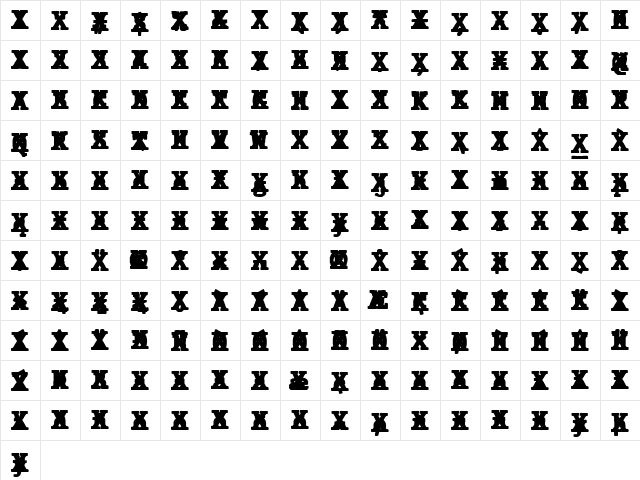
JMH Typewriter mono Black Cross Regular
Design Context for JMH Typewriter mono Black Cross Typeface
JMH Typewriter mono Black Cross uses fixed-width spacing throughout, giving it the structured, systematic character associated with coding environments and technical documentation.
A natural fit for code editors, technical documentation, developer-focused branding, and terminal-inspired UI.
Pro Tip: Pair JMH Typewriter mono Black Cross with a proportional sans for UI contexts where code-style labels and regular body copy need to coexist.